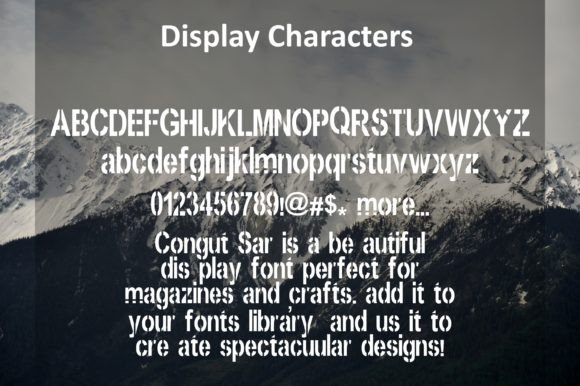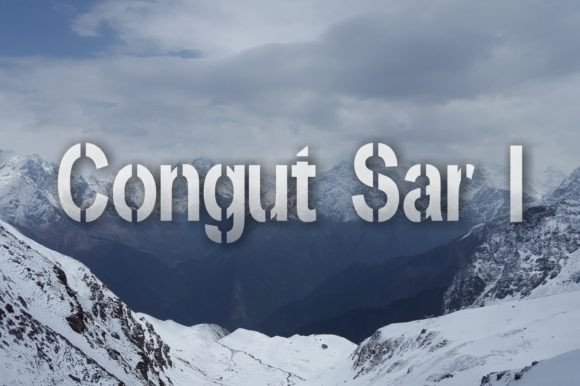
Congut Sar I Font: Elevate Your Designs with a Cool and Modern Display Font
Are you tired of using the same old fonts in your designs? Look no further than Congut Sar I Font, a cool and modern display font that’s sure to take your creative projects to the next level. In this article, we’ll dive into the world of Congut Sar I Font, exploring its features, benefits, and uses, as well as provide tips on how to incorporate it into your designs.
What is Congut Sar I Font?
Congut Sar I Font is a stylish and contemporary display font that’s perfect for designers, crafters, and anyone looking to add a touch of modernity to their projects. With its sleek lines, unique letterforms, and bold personality, Congut Sar I Font is sure to make a statement.
Key Features of Congut Sar I Font
- Modern and sleek design: Congut Sar I Font boasts a fresh and modern design that’s perfect for creating eye-catching headlines, titles, and captions.
- Unique letterforms: The font features unique and stylized letterforms that add a touch of personality to any design.
- Bold and eye-catching: Congut Sar I Font is designed to make a statement, making it perfect for use in posters, flyers, brochures, and other marketing materials.
- Easy to read: Despite its bold and stylized design, Congut Sar I Font remains easy to read, making it perfect for use in body text as well as headlines.
Benefits of Using Congut Sar I Font
So why should you choose Congut Sar I Font for your next design project? Here are just a few benefits of using this amazing font:
- Adds a touch of modernity: Congut Sar I Font is the perfect way to add a touch of modernity to your designs, making them stand out from the crowd.
- Increases creativity: With its unique and stylized letterforms, Congut Sar I Font is sure to inspire your creativity and help you think outside the box.
- Versatile: Congut Sar I Font can be used in a wide range of design projects, from posters and flyers to logos and branding materials.
How to Use Congut Sar I Font in Your Designs
So how can you incorporate Congut Sar I Font into your designs? Here are a few tips to get you started:
- Use it as a headline font: Congut Sar I Font is perfect for use in headlines and titles, where its bold and stylized design can really make an impact.
- Pair it with other fonts: Congut Sar I Font pairs well with a wide range of other fonts, making it easy to create visually appealing and harmonious designs.
- Experiment with different colors: The font looks great in a wide range of colors, so don’t be afraid to experiment and find the perfect color scheme for your design.
- Use it in your branding materials: Congut Sar I Font is perfect for use in logos, business cards, and other branding materials, where its modern and sleek design can help you establish a strong brand identity.
In conclusion, Congut Sar I Font is a cool and modern display font that’s perfect for designers, crafters, and anyone looking to add a touch of modernity to their projects. With its sleek lines, unique letterforms, and bold personality, Congut Sar I Font is sure to make a statement. So why not give it a try and see the amazing results for yourself?
Congut Sar I is a cool and modern display font. Add it to your creative ideas and enjoy the results!